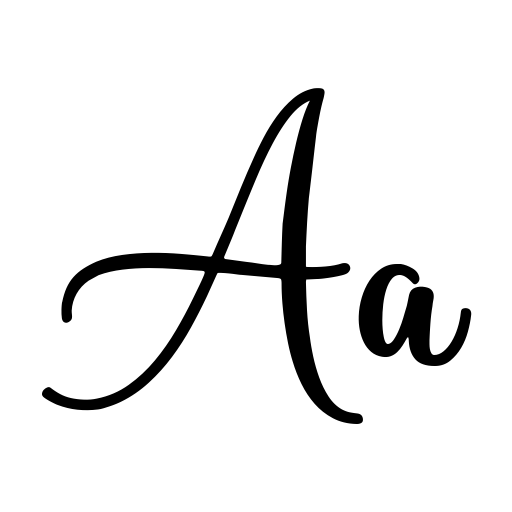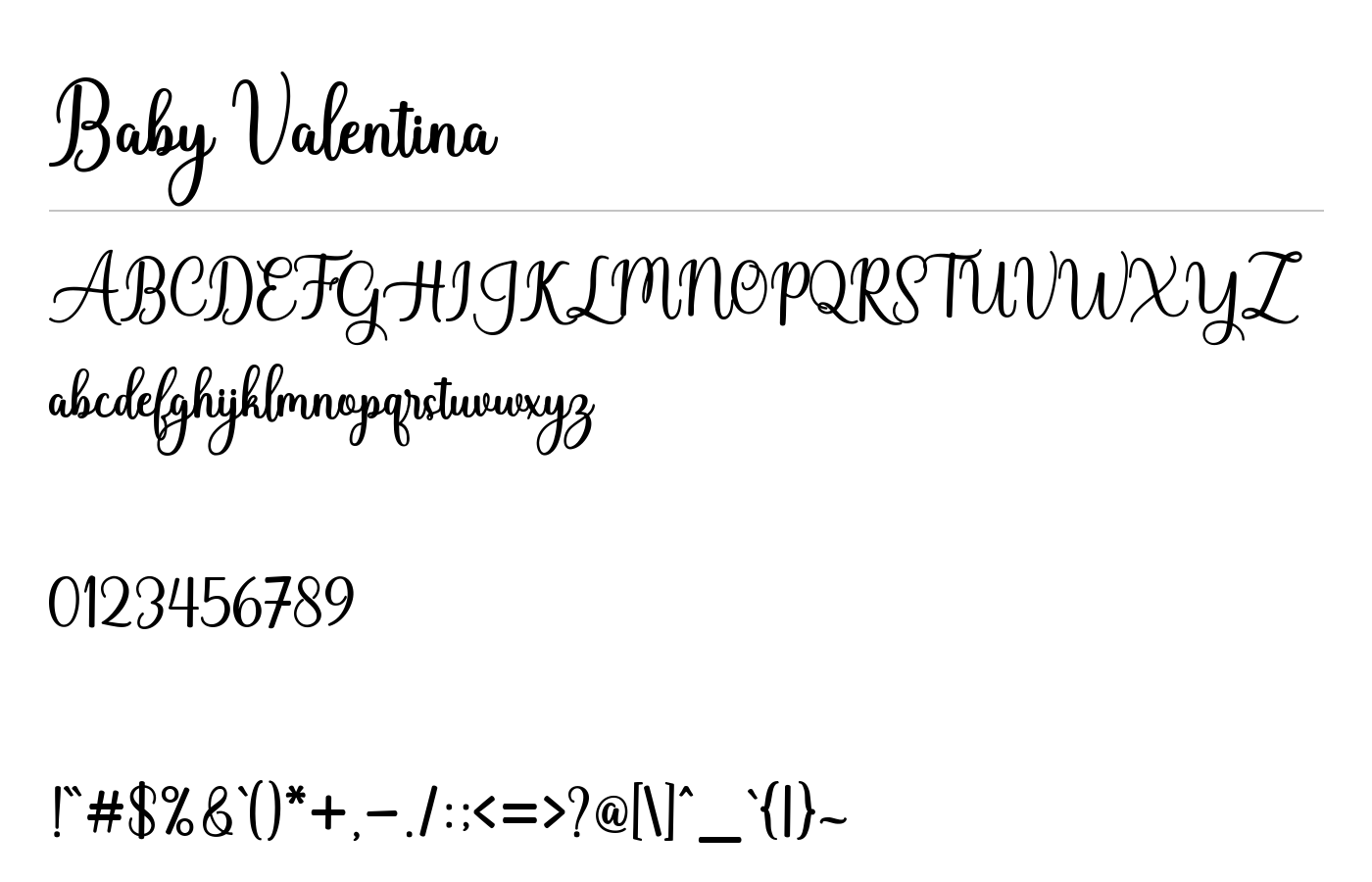
Baby Valentina is a graceful script font with a light, flowing style that combines elegance and charm. Its slender strokes and playful loops create a friendly yet refined feel, making it perfect for invitations, branding, and any design seeking a warm, personal touch. This font works especially well in decorative headlines and logos where a delicate, handwritten look is desired.
Baby Valentina Font
About Baby Valentina Font
| Font family | Baby Valentina Font |
| Designer | M Akmal |